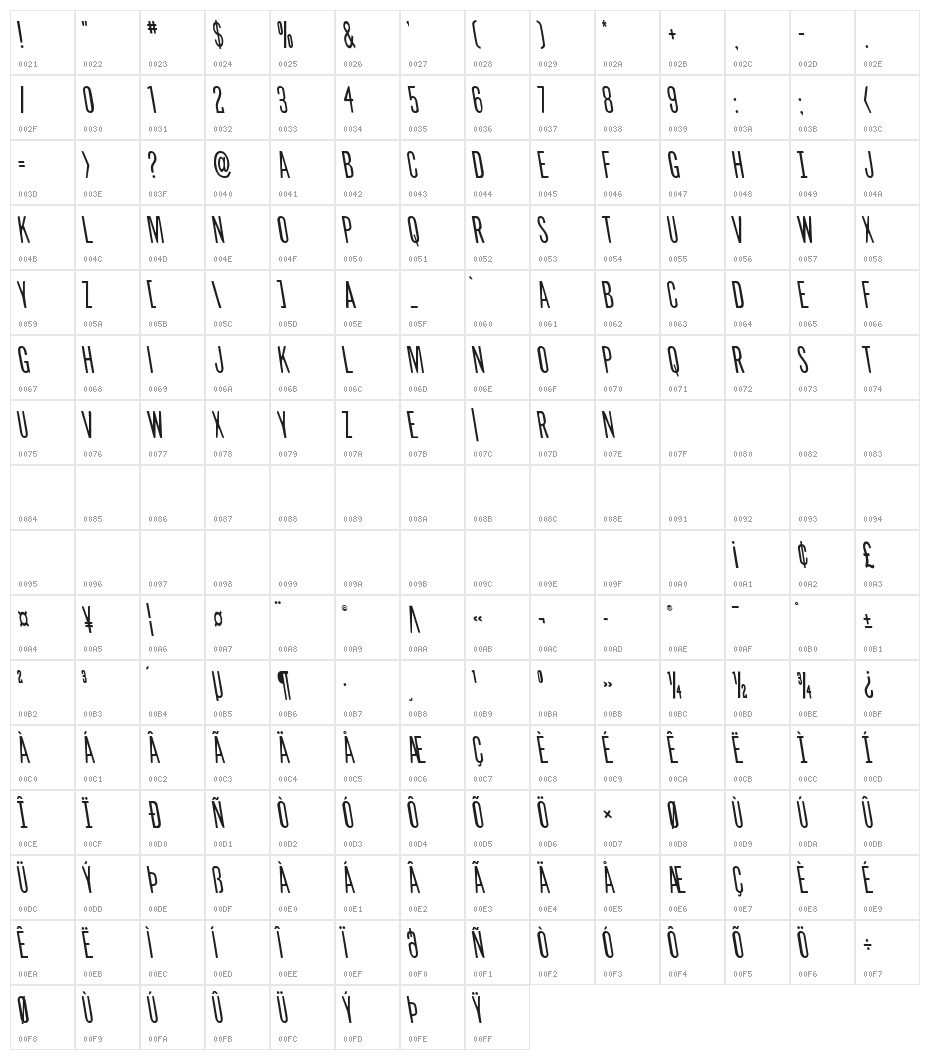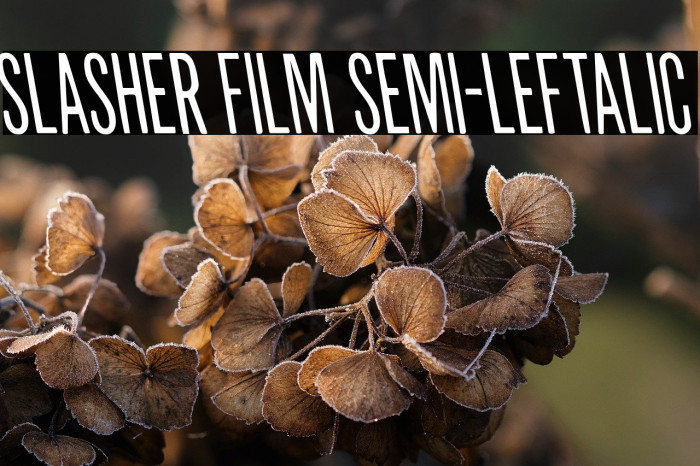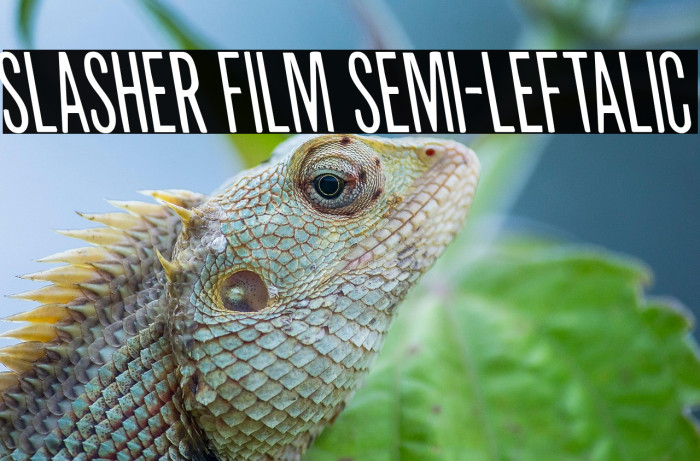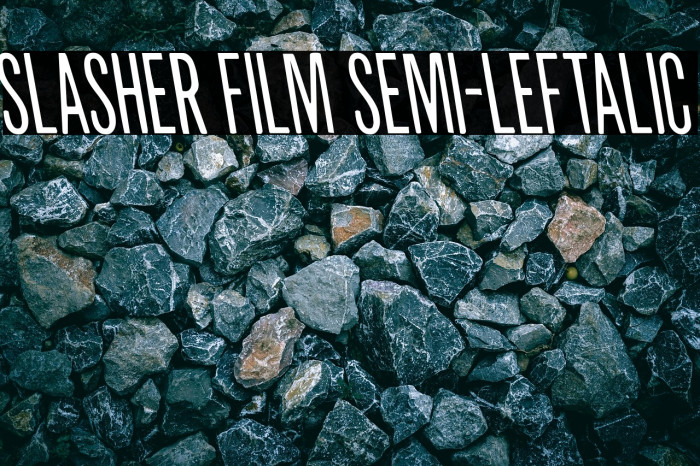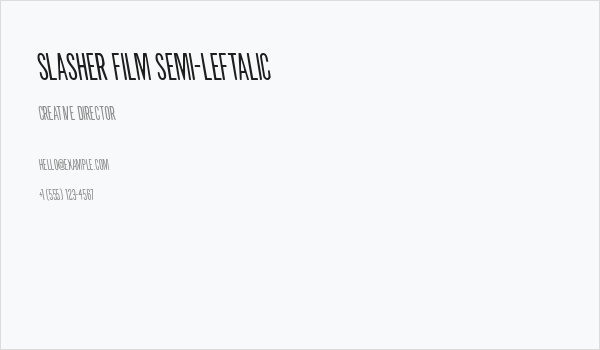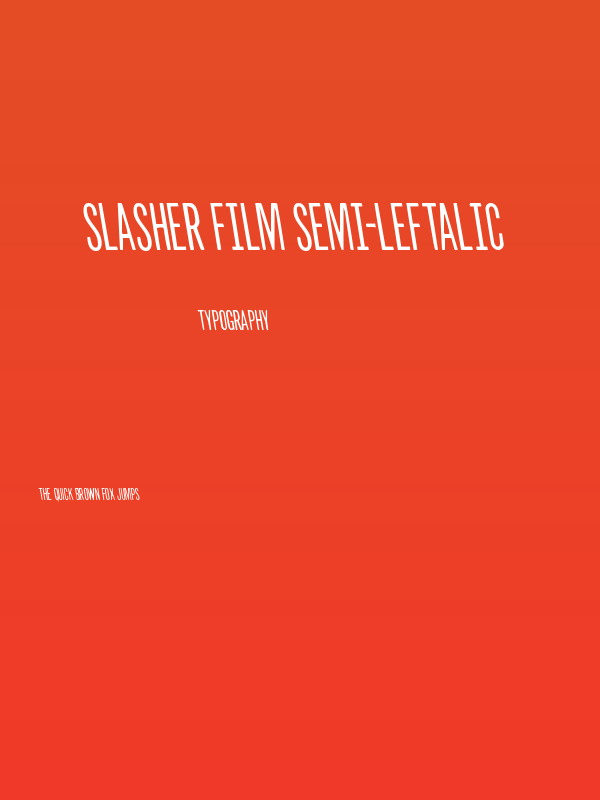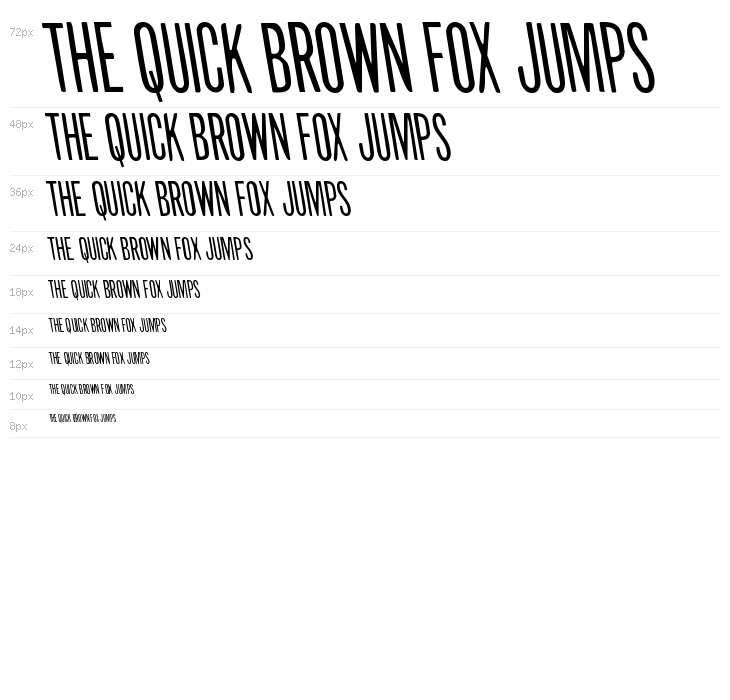
Slasher Film Semi-Leftalic Font
Slasher Film Semi-Leftalic Description
This font features a distinct slanted style, giving it a dynamic and edgy appearance. The characters are tall and narrow, with a slight leftward tilt that adds a sense of motion and urgency. The strokes are consistent in thickness, providing a uniform look across all characters. The uppercase and lowercase letters maintain a cohesive design, while the numerals and special characters complement the overall aesthetic. This font's unique style makes it suitable for projects that require a bold and unconventional look.
| Proposed Projects | Ideal for horror movie posters, edgy branding, and attention-grabbing headlines. |